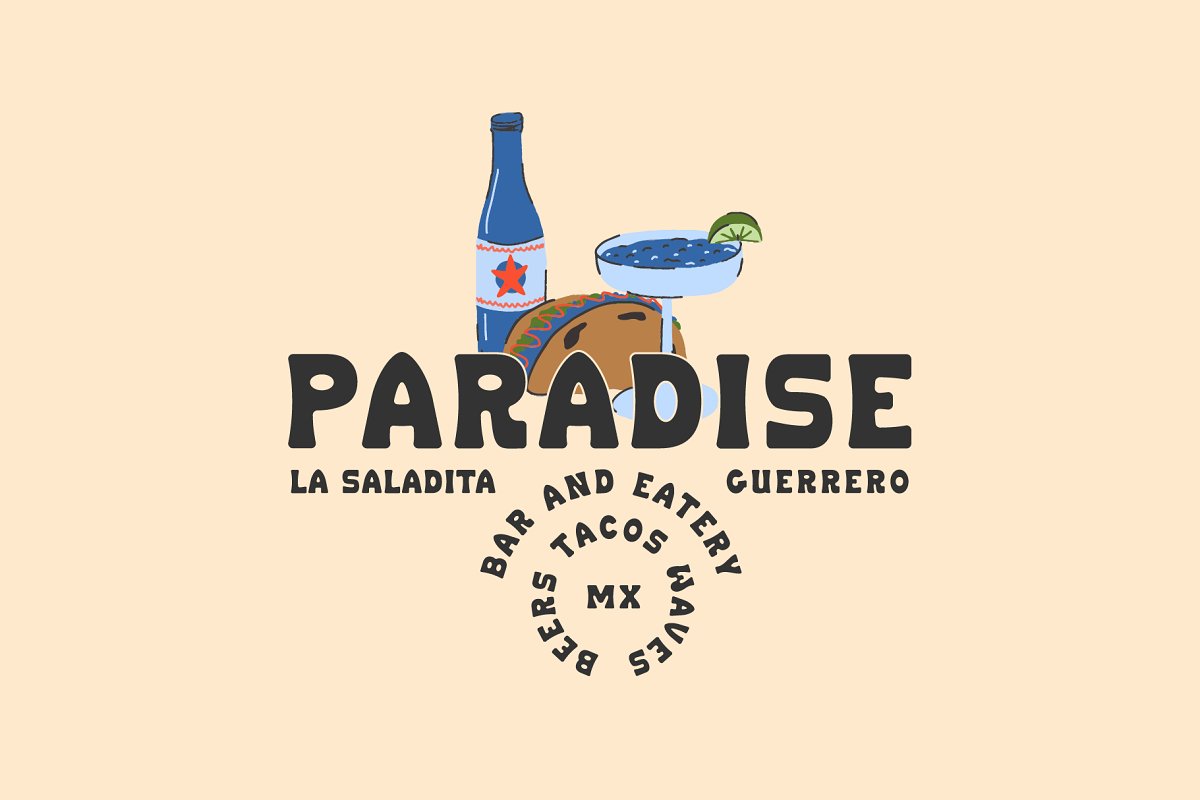
About the PARADISE FONT
Our Paradise font has been designed to be approachable and fun, We took inspiration from tropical destinations and waves crashing on shore to create a free flowing harmony, With a sunshine and surfy vibe to it, we love the way this font looks in logos that need a little extra character or personality, We hope you enjoy using this font as much as we enjoyed creating it